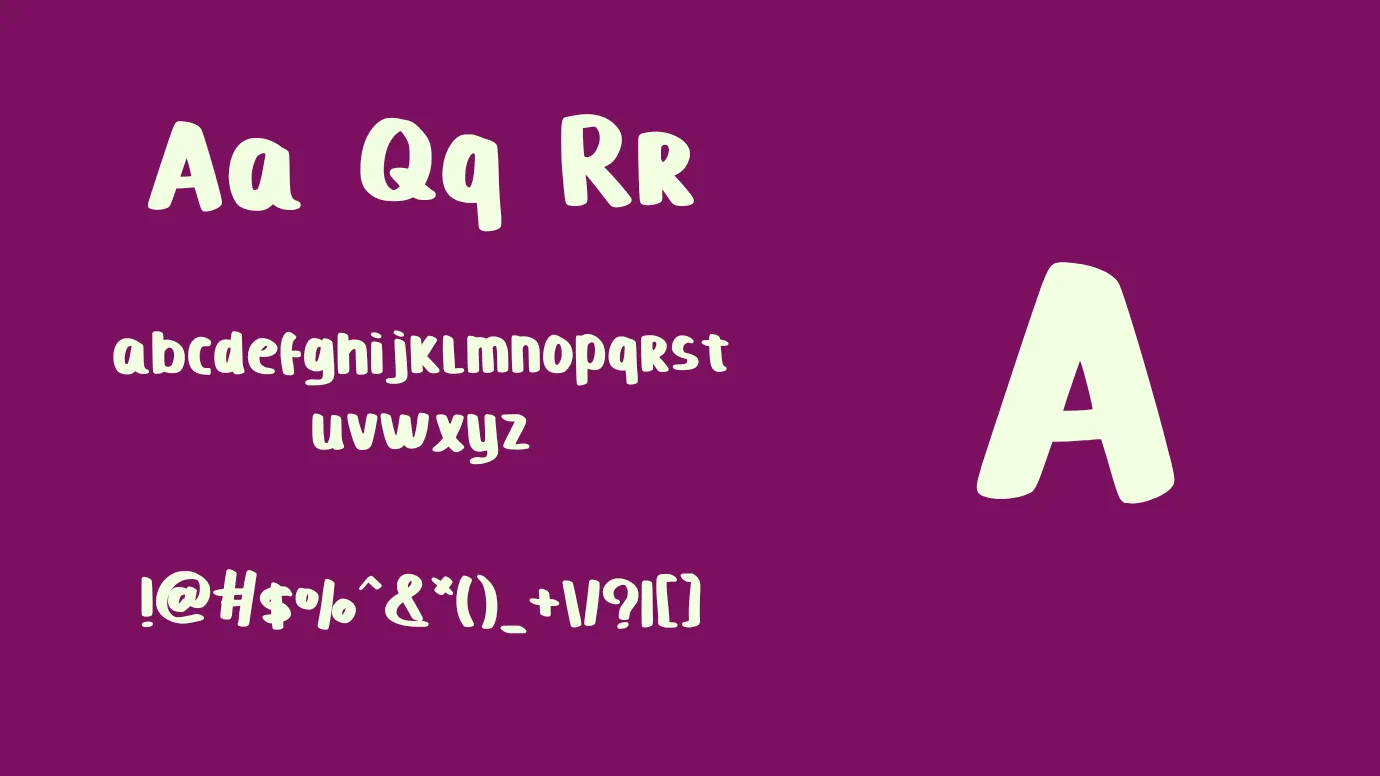
Alloha Font is a very friendly display-type font. It was designed by VulType Font. You can make all personal and commercial projects by using this font.
Alloha Font